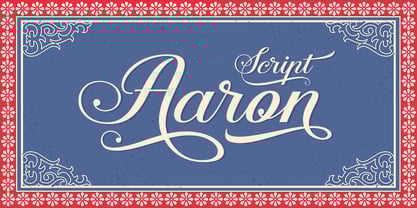
Aaron Script Font
Aaron Script Font is perfect for personal branding consultancy logos, signature design services, executive coaching materials, professional memoir publishing, luxury stationery brands, high-end wedding planning, personalized gift companies, bespoke tailoring services, exclusive membership clubs, and distinguished gentleman's accessories. This elegant typeface excels in applications where personal distinction, individual craftsmanship, and sophisticated personalization are essential brand characteristics.
What makes Aaron Script Font exciting is its sophisticated emulation of refined personal handwriting that captures the elegance of executive-level penmanship and distinguished signature styling. The font features flowing letterforms with confident strokes and natural connecting rhythms that create an immediate sense of personal authority and professional distinction. Its authentic character makes it perfect for brands that emphasize individual excellence, personal service, and the kind of attention to detail that discerning clients expect from premium service providers.
The Aaron Script Font family typically includes Regular and Bold weights, often accompanied by an extensive collection of swashes, ligatures, and stylistic alternates that enhance its personalized appeal and signature-quality aesthetics. Many versions feature beginning and ending flourishes, contextual alternates that improve script flow, and decorative elements that reflect executive stationery traditions. Some collections include complementary serif fonts and matching ornamental elements that create comprehensive personal branding solutions.